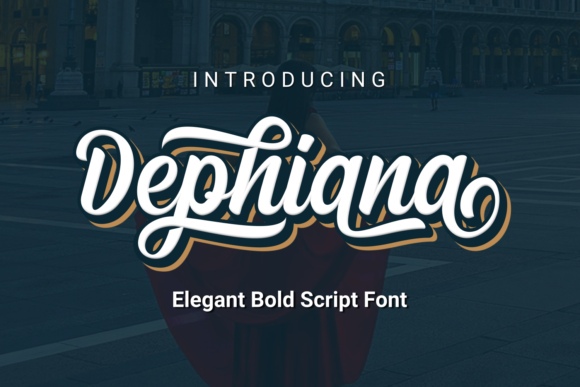
Dephiana Font
Dephiana Font is perfect for elegant feminine brands, sophisticated women's lifestyle services, graceful beauty salon identity, refined wedding planning companies, luxurious spa retreats, and upscale feminine product packaging. Its graceful character makes it ideal for women's fashion boutiques, elegant jewelry designers, sophisticated mother-daughter brands, refined floral design studios, graceful dance academies, and any project requiring feminine sophistication with elegant grace and timeless feminine appeal.
This font is exciting because it embodies the perfect balance of strength and elegance that defines modern sophisticated femininity while delivering exceptional functionality for brands celebrating women's grace, intelligence, and refined taste. The beautifully crafted letterforms flow with natural elegance and confident femininity, creating typography that feels both empowering and gracefully sophisticated, making it ideal for organizations seeking to communicate authentic feminine strength and elegant sophistication.
Whether you're developing identity systems for sophisticated women's brands, creating materials for elegant feminine services, or designing promotional content for refined lifestyle organizations, Dephiana Font Free Download delivers the graceful sophistication and feminine elegance that resonates with women seeking authentic representation and refined quality. Its elegant presence ensures memorable brand recognition across digital platforms and print materials, making it perfect for websites, mobile applications, and feminine campaigns that celebrate women's grace, sophisticated beauty, and the transformative power of elegant femininity with contemporary sophistication and authentic graceful appeal.